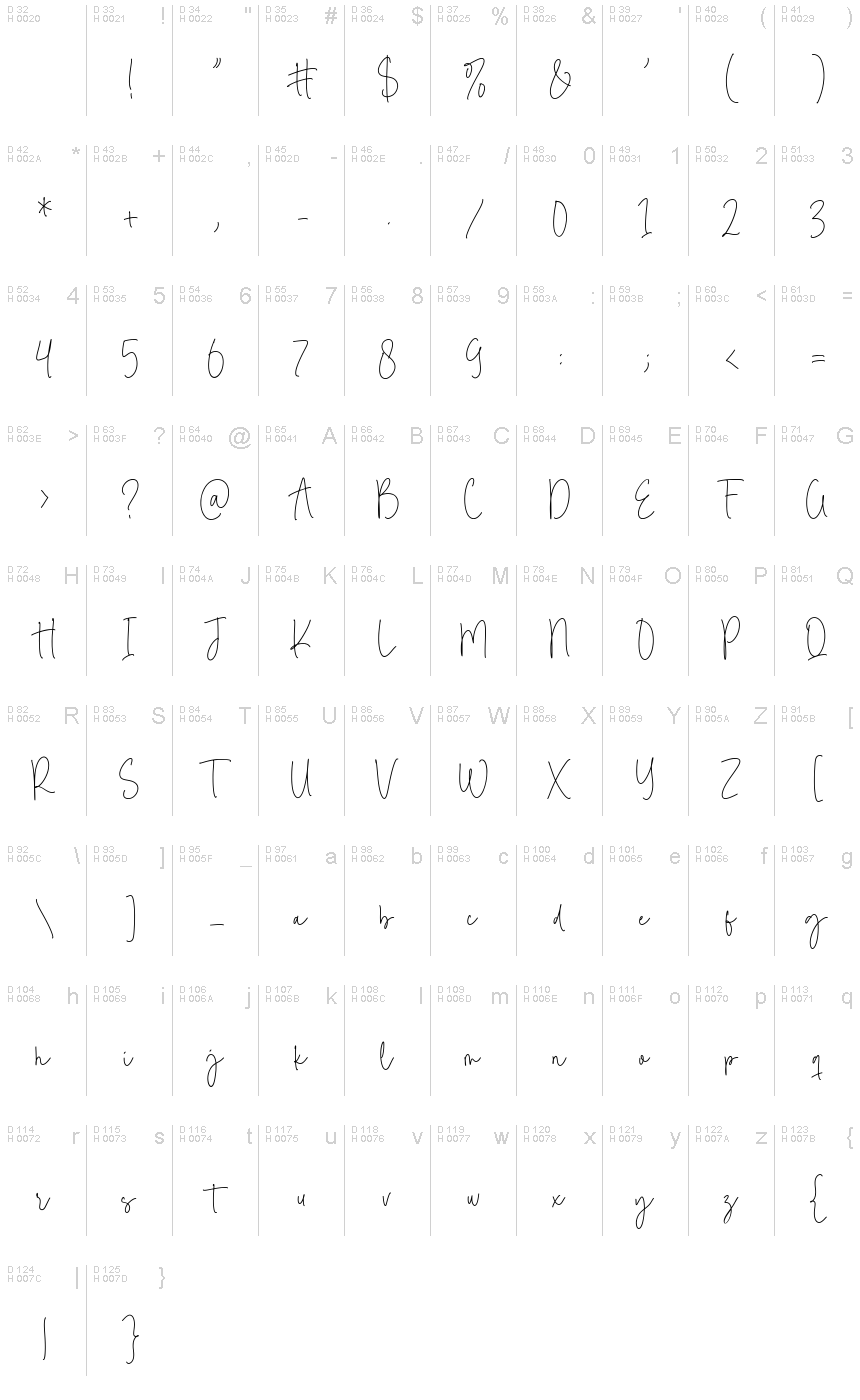
Reading Moments
Reading Moments font by Balpirick Studio is both whimsical and elegant. It's a perfect blend of classic handwritten cursive styles, with elongated lowercase letters and slender strokes that look great on screen or paper. Soft curves and those lovely swashes make the font that much more elegant, making this versatile typeface a great choice for branding, logos, packaging, posters, T-shirts or simply as a stylish text overlay to any background image.
Pair it with magazine layouts for feels of elegance. Use it in newspapers and books for its assured sophistication. Or deploy it in your web design work – wherever sophisticated style demands attention!